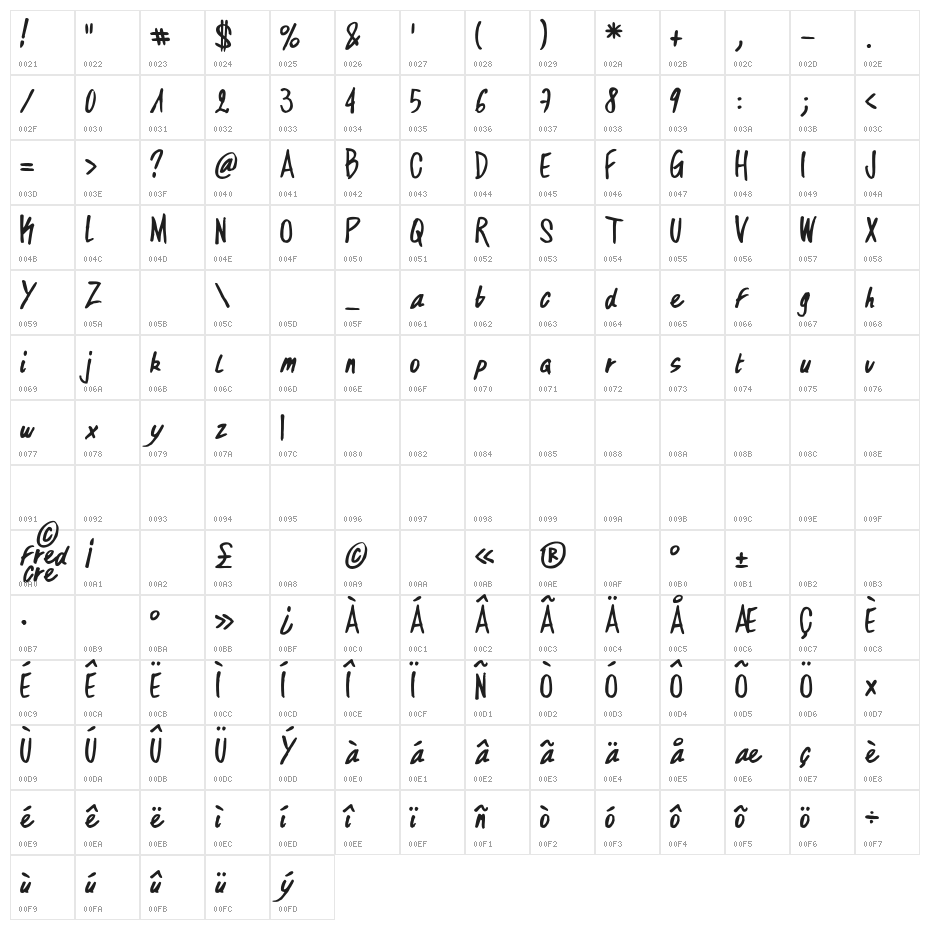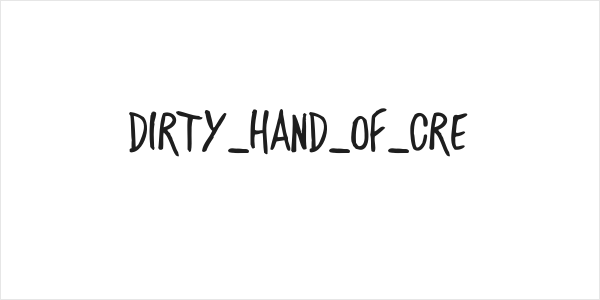
DIRTY_HAND_OF_CRE Font
DIRTY_HAND_OF_CRE Description
This font exhibits a bold, handwritten style with a playful and energetic appearance. The characters are slightly irregular, adding a personal and informal touch. The uppercase letters are tall and slightly narrow, while the lowercase letters maintain a consistent flow with rounded edges. Numbers and special characters follow the same lively style, making the font suitable for creative and informal projects. The overall look is dynamic and expressive, perfect for capturing attention in a casual context.
| Proposed Projects | Ideal for greeting cards, posters, social media graphics, and informal branding projects. |